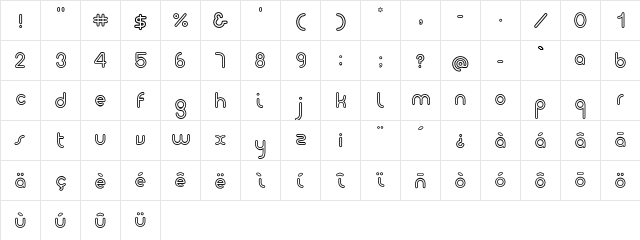
Giro Outline
| Style | Outline |
| Foundry | Marcelo Magalh˥s Pereira |
| Designer | Marcelo Magalh˥s |
Design Context for Giro Typeface
Giro brings ornamental detail and strong personality to headlines and identities, where visual impact matters more than quiet functionality.